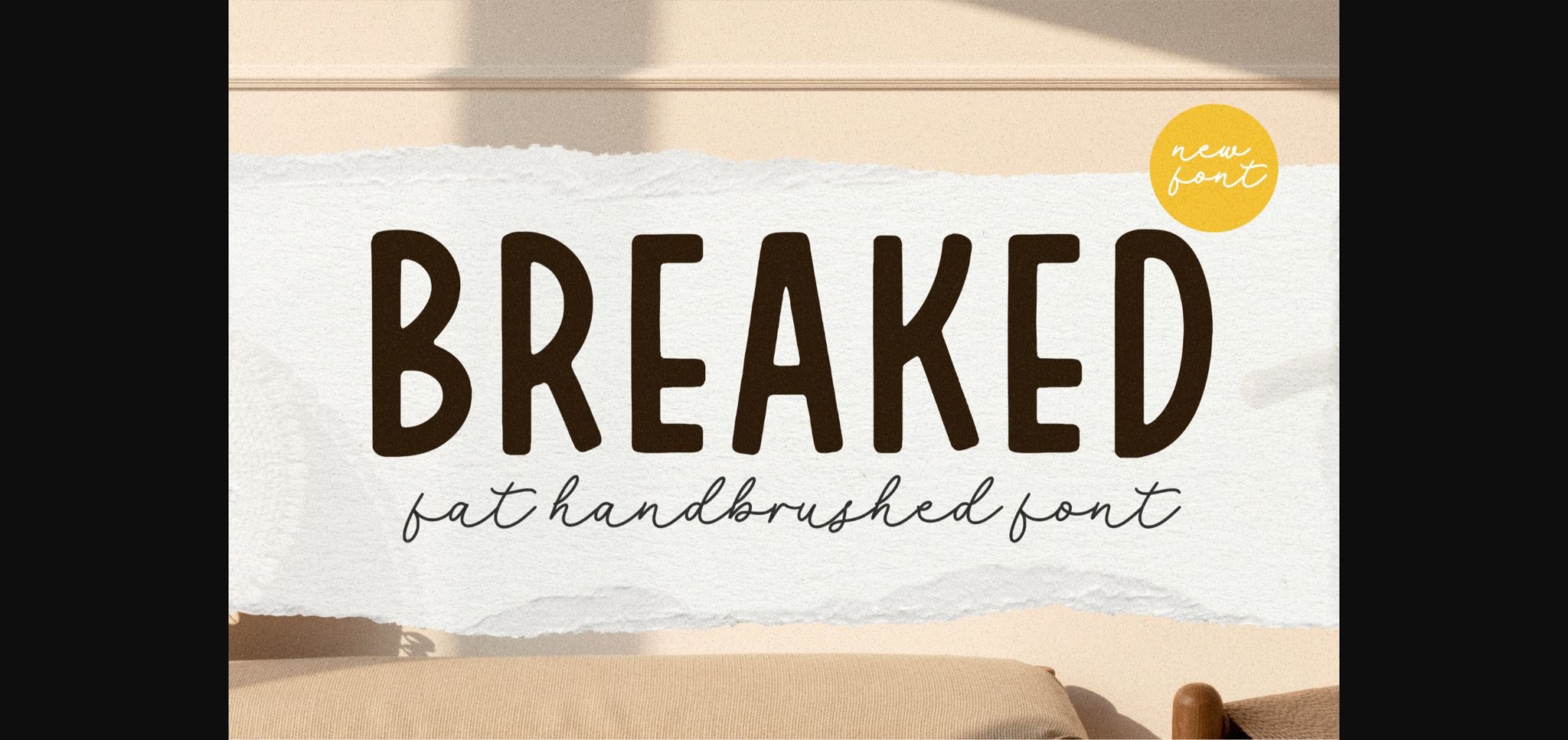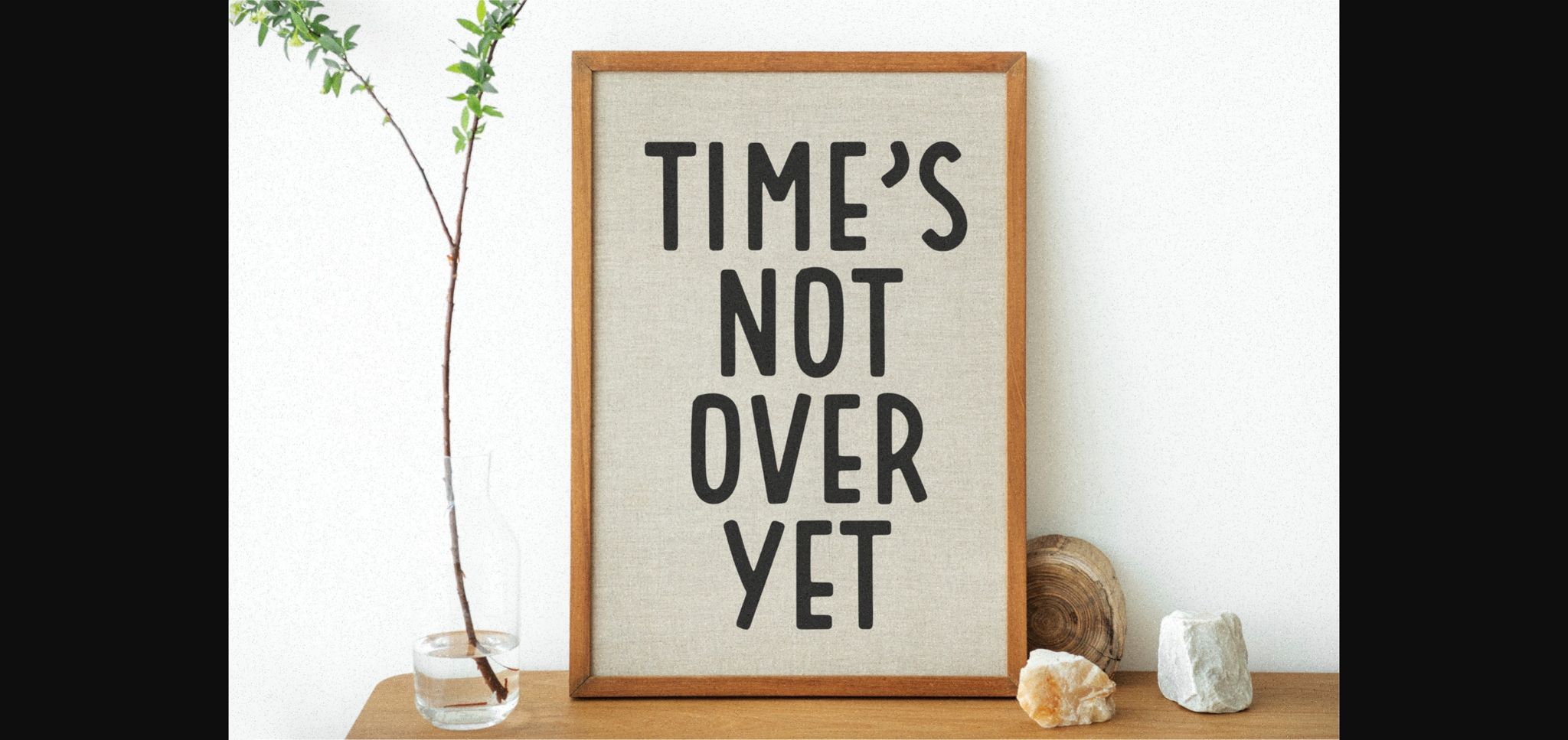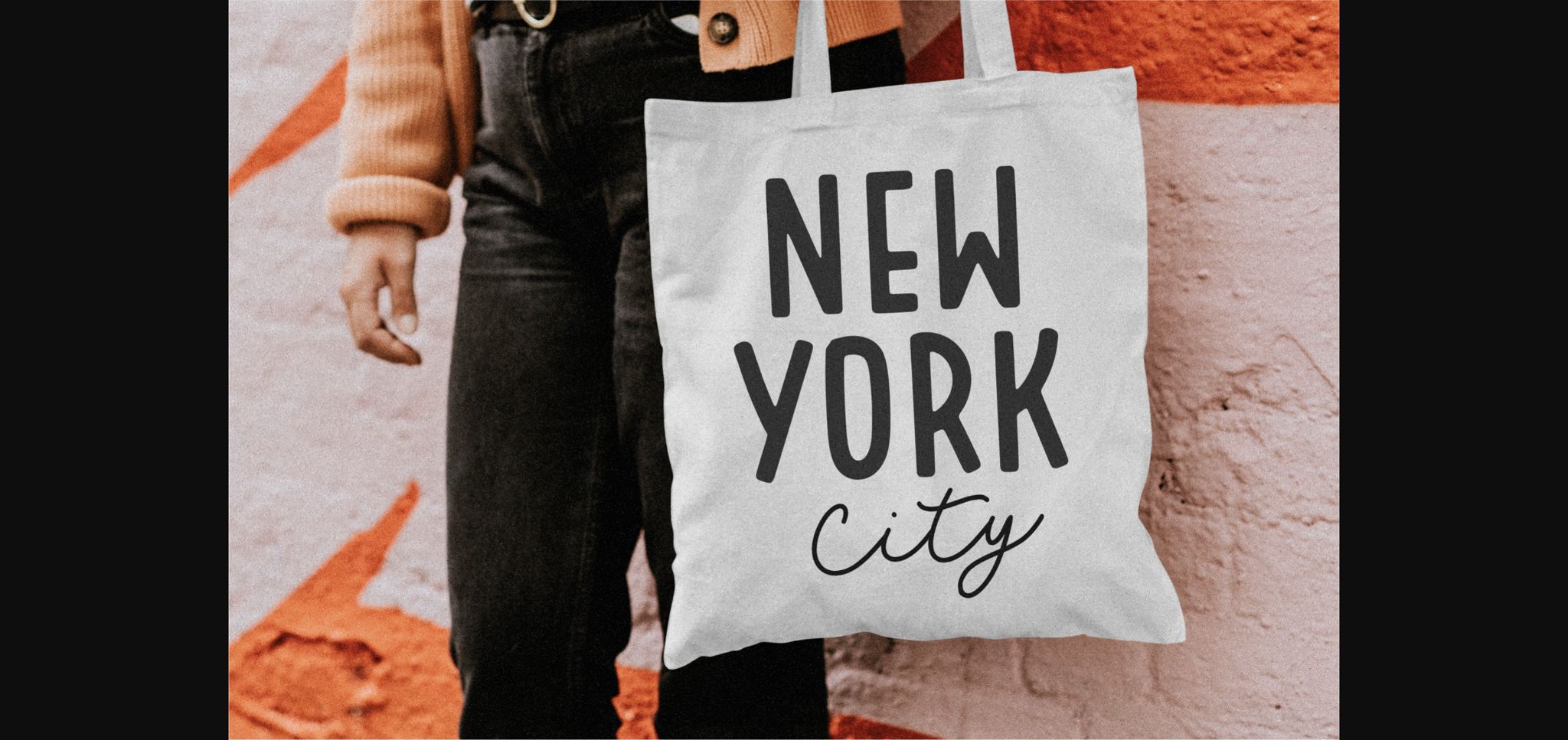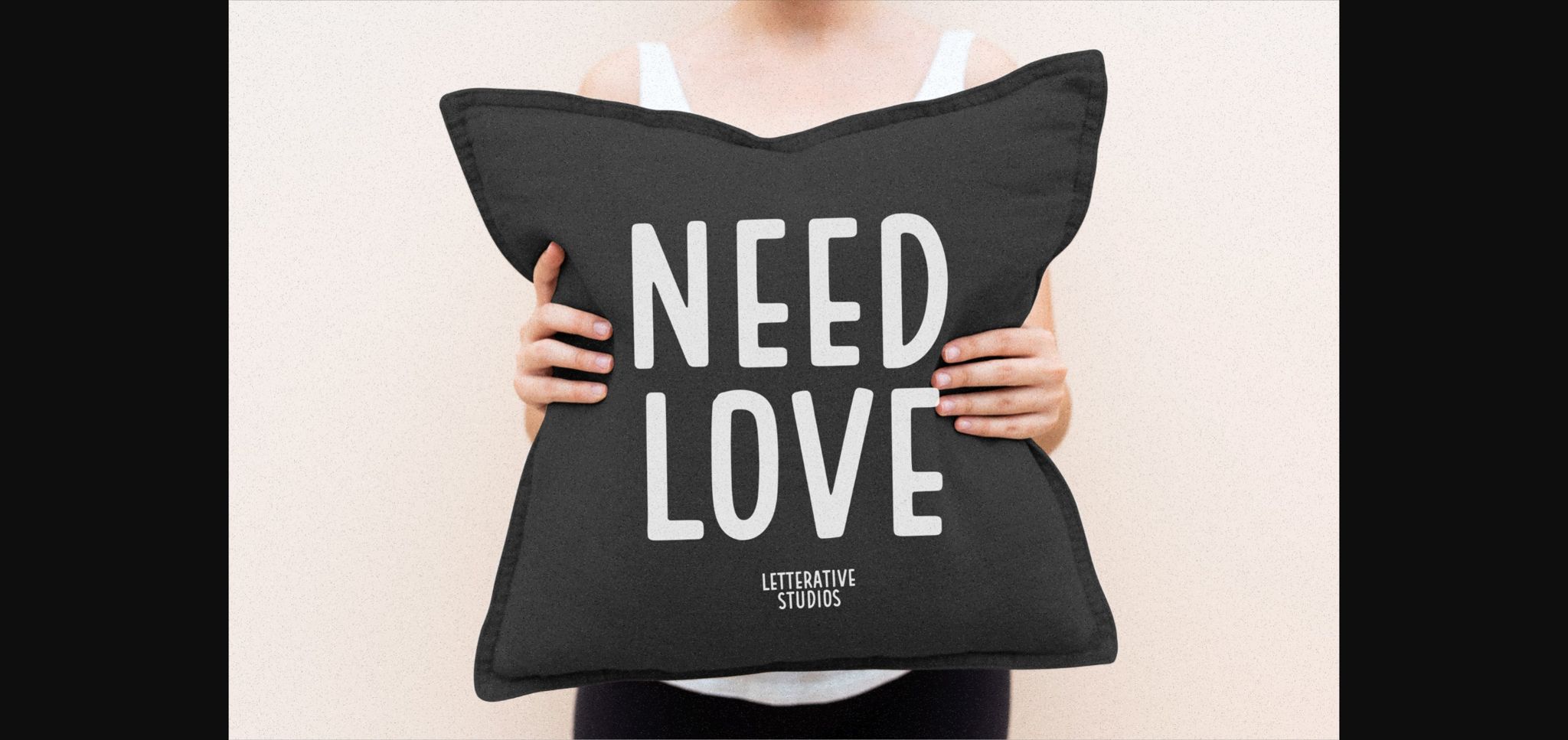
About Breaked Font
Breaked is a Fat Hand-brushed Sans Serif Font.
This font only has uppercase letters and is perfect for creating logos, greeting cards, posters, packaging and so much more! Its charming and warm character will help you give your project a truly unique feel.